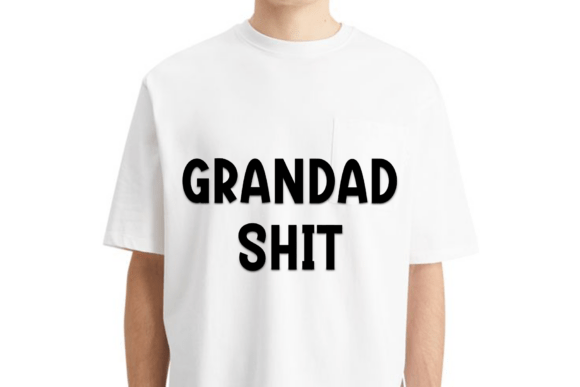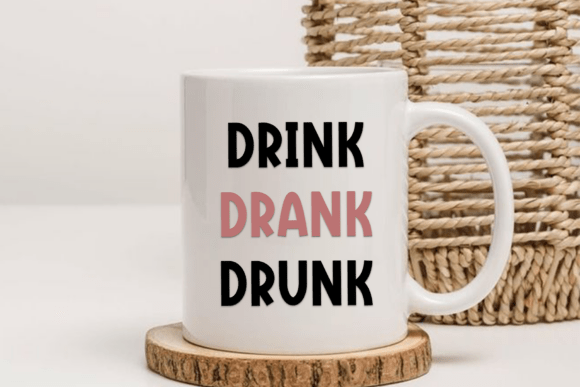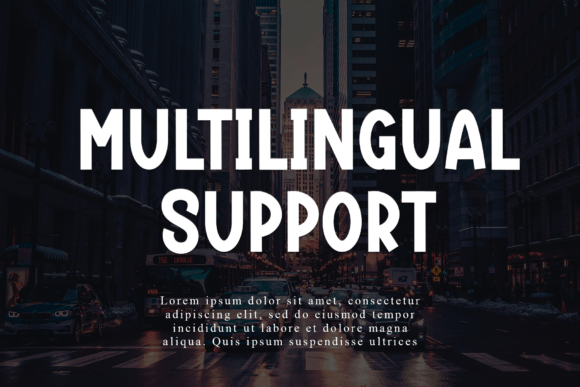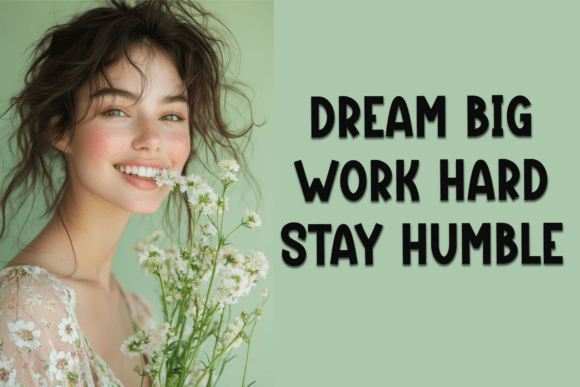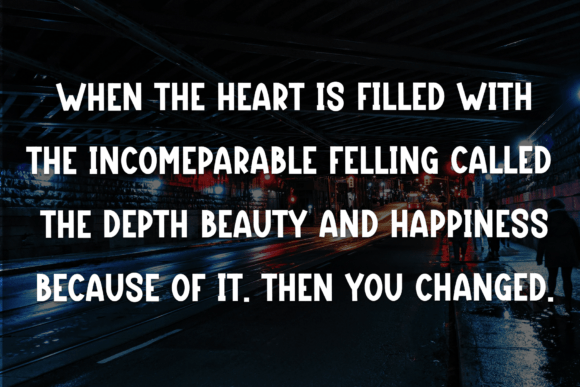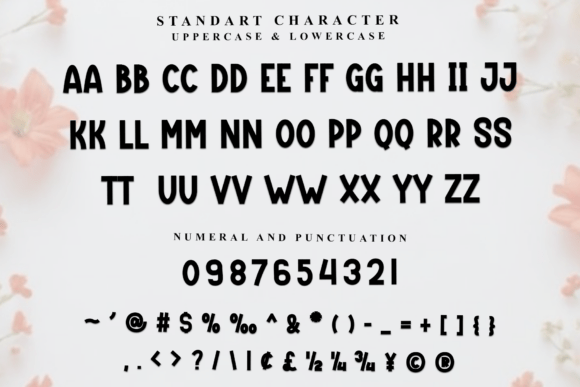
Introduction to Coffee Today Font
Have you ever been working on a creative project, pouring your heart and soul into every detail, and then suddenly, you come across the perfect font that brings everything together? That’s exactly what happened when designers discovered the Coffee Today Font. This beautiful and eye-catching font is designed with a soft, unique touch, making it the perfect addition to any high-quality design project.
The Coffee Today Font is not just another font in the market; it’s a design resource that adds a special character to your work. Its distinctive strokes and various characters make it versatile and meaningful, ideal for a wide range of creative works. Whether you’re working on a craft project or designing a product, this natural font style will enhance your designs, making them appealing to many audiences across different artistic and creative fields.
Key Features of Coffee Today Font
- High-quality design resource ideal for creative projects, including logos, graphics, and branding materials.
- Designed to be easily scalable, allowing for seamless use in various design contexts, from small text to large headings.
Honest Review: Coffee Today Font
I recently had the opportunity to try out the Coffee Today Font, and I’m excited to share my thoughts on this design resource. Overall, I found it to be a great addition to my creative project.
- High-quality design**: The Coffee Today Font boasts clean, modern lines that make it perfect for any design project.
While I found the Coffee Today Font to be generally well-designed, there are a few limitations to consider. The font family is relatively small, and I found the bold weight to be slightly inconsistent.
Overall, I’m impressed with the Coffee Today Font. Its high-quality design and transparent background make it an excellent choice for any creative project. While it may not be perfect, it’s a great design resource to have in your toolkit.
Coffee Today Font
The Coffee Today Font is a high-quality design resource that can add a unique touch to your creative project. With its modern and stylish design, this font is perfect for designers and artists looking for a unique and creative way to express themselves.
The Coffee Today Font is perfect for:
- Designing coffee shop logos and branding materials.
- Creating social media graphics and advertisements.
- Designing promotional materials, such as flyers and brochures.